Oldstyle Typeface styles derived from fifteenth- to eighteenth-century designs, and characterized by moderate thick-and-thin contrasts, bracketed serifs, and a handwriting influence.
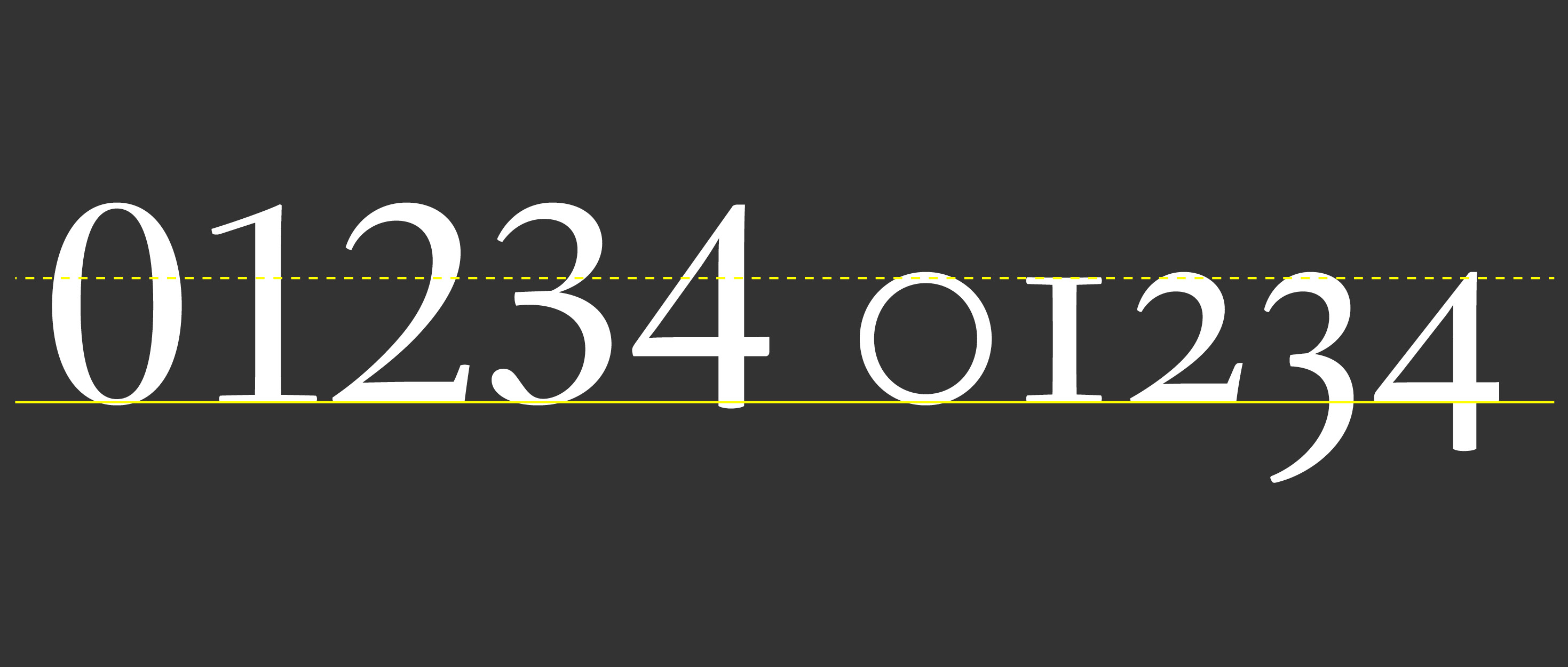
Old Style Figures Numerals that exhibit a variation in size, including characters aligning with the lowercase x-height, and others with ascenders or descenders.